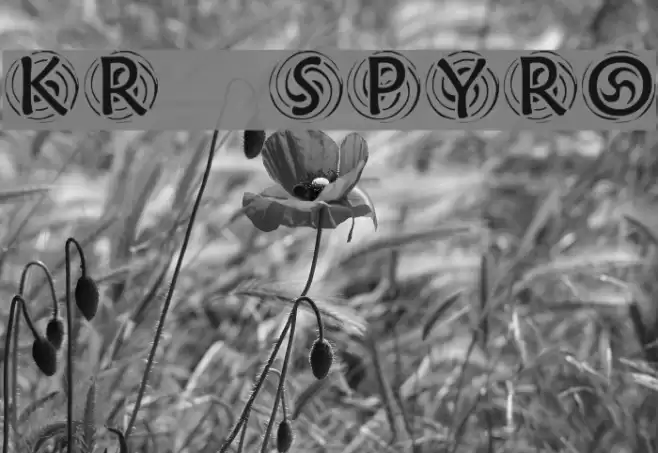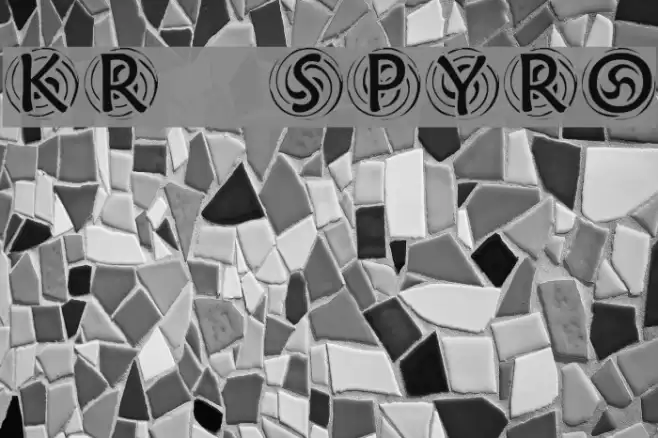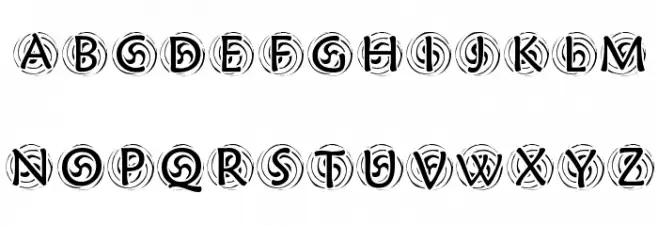
KR Spyro Font
KR Spyro Description
This font features a unique and intricate design where each character is encased within a series of concentric circles, creating a hypnotic and dynamic visual effect. The letters are bold and geometric, with a futuristic and abstract style that draws attention. The uppercase and lowercase characters maintain a consistent style, while the numbers are represented as solid rectangles, adding a stark contrast to the circular motifs of the letters. This font is highly decorative and stands out due to its unconventional and artistic approach, making it ideal for creative and eye-catching designs.
A bold, geometric font with concentric circle motifs and abstract styling from Images & Symbols fonts.
- Proposed Projects: Ideal for logo design, album covers, posters, and any project requiring a bold, artistic statement.
- Overall Style: Modern, Abstract
- Use Case: Logos, Posters, Album Covers